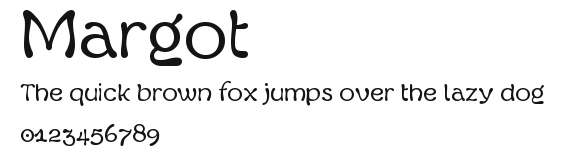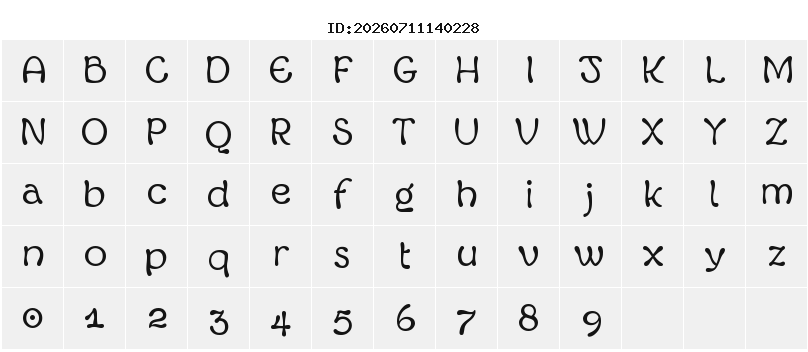
• Font Name: Margot
• Full Font Name: Margot
• Designer: Lauren Thompson
About Margot.ttf
Margot.ttf is a modern, elegant sans-serif font designed for ultimate readability and visual harmony. Perfect for branding, headlines, web design, and print materials.